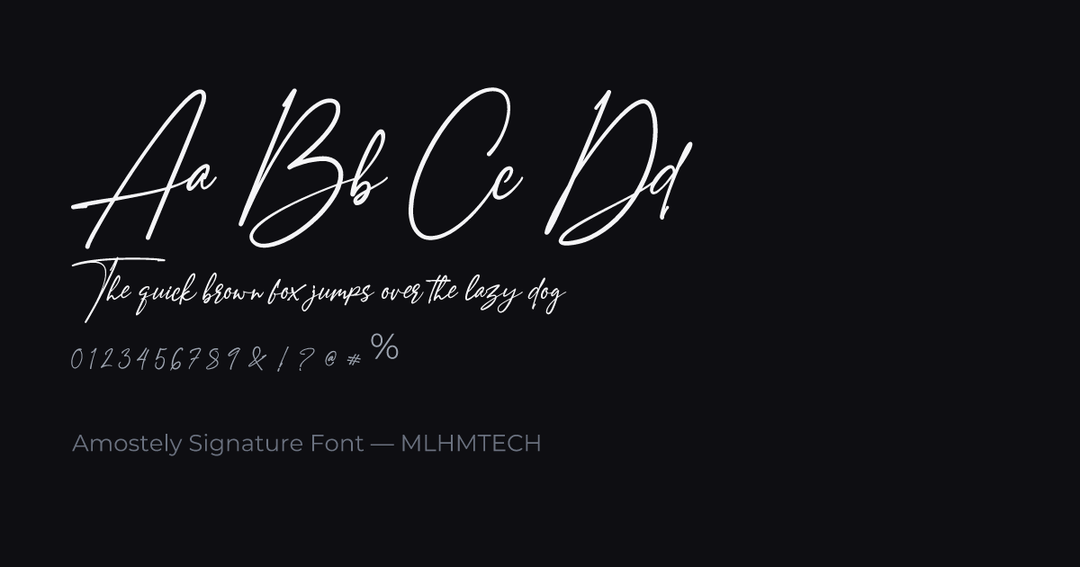
Amostely Signature Font
Amostely is a refined signature-style script font, perfect for adding a personal and elegant touch to logos, invitations, and branding projects.
Amostely Signature is a beautifully crafted script font that mimics a natural handwritten signature. Its smooth, flowing strokes and elegant curves make it ideal for projects that require a personal and sophisticated feel. Whether you're designing a logo, wedding invitation, or social media graphic, Amostely adds a touch of class and authenticity.
Use Amostely to create memorable brand identities, personalized stationery, or eye-catching quotes. Its legible yet stylish design ensures your message stands out while maintaining readability.